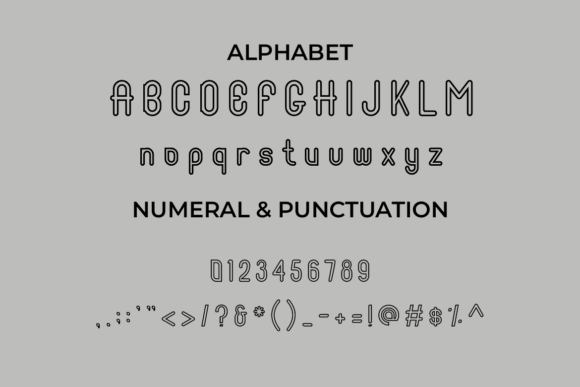
Introduction to Sharmine Line Font Font
Fonts play a crucial role in design, and the Sharmine Line Font font is a typeface that brings both character and versatility to any project. Whether you’re working on a branding project, a website, or a print design, the Sharmine Line Font font offers a unique style that can elevate your work.
Sharmine Line is a bold and authentic display font.
The font is suitable for any branding project like logo, t-shirt printing, esports, and many more It looks outstanding in a wide range of contexts.
Key Features of Sharmine Line Font Font
Why Choose Sharmine Line Font Font?
The Sharmine Line Font font is more than just a typeface – it’s a design tool that helps you communicate your message with style and clarity. Its unique character set and versatile design make it suitable for a wide range of applications, from elegant invitations to bold headlines.
With its carefully crafted letterforms and balanced proportions, the Sharmine Line Font font ensures readability and visual appeal across all mediums.
What makes Sharmine Line Font font special?
The Sharmine Line Font font stands out with its unique design, exceptional readability, and versatility across various design applications.